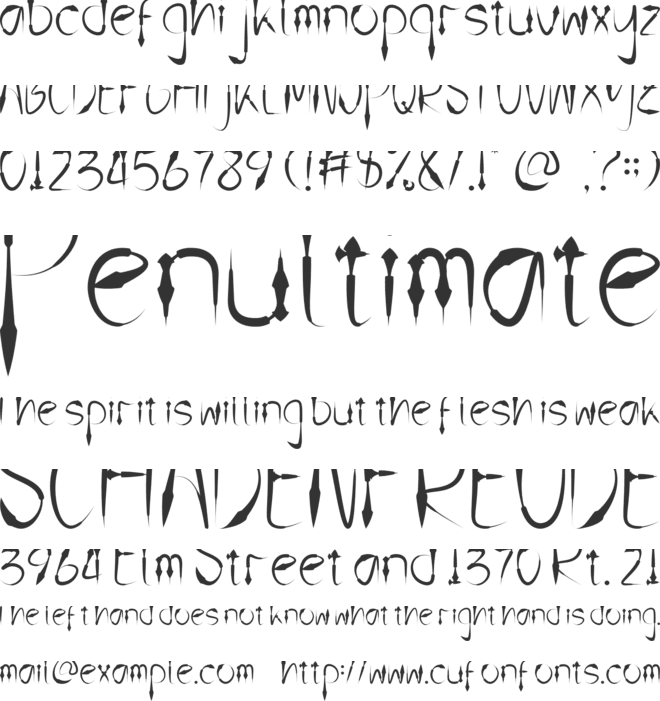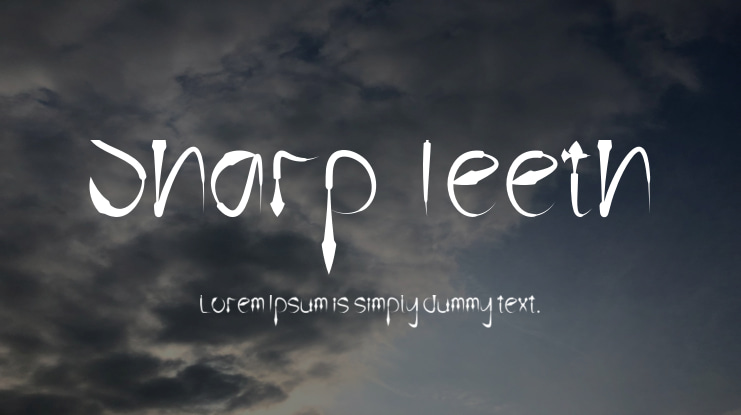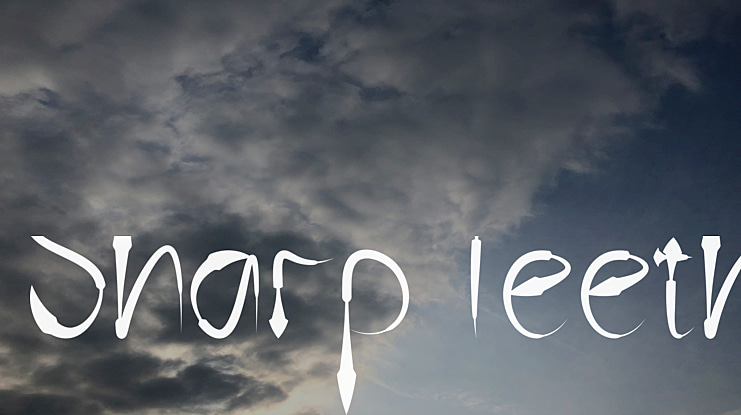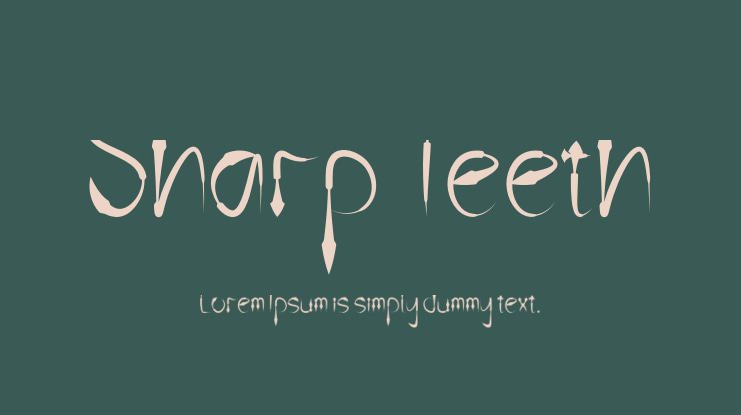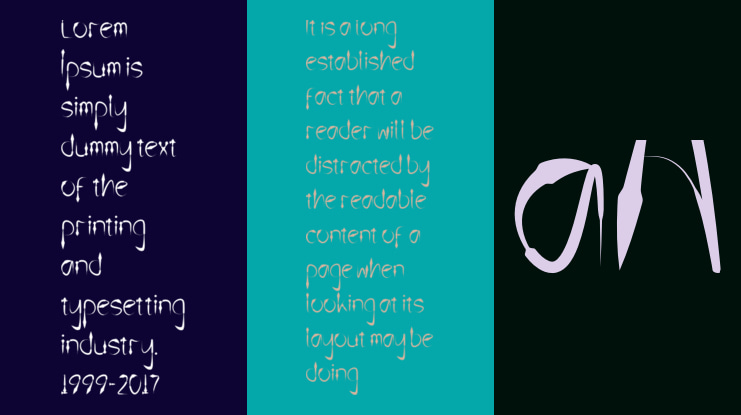
Sharp Teeth Font
Sharp Teeth is a cool looking and uniquely designed display font. Add it to each of the creations that require a creepy, spooky touch.